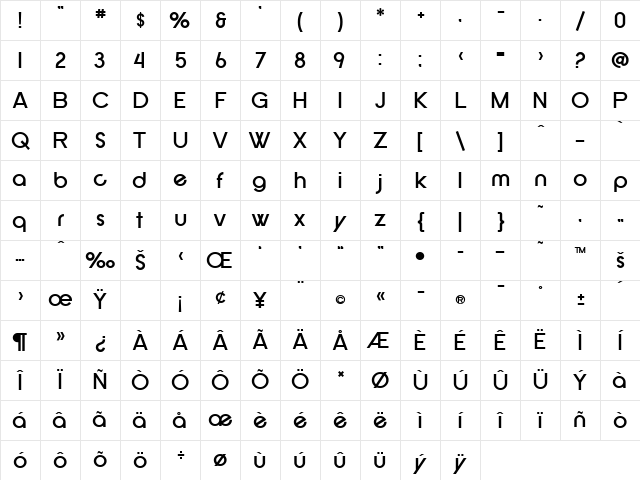
SF New Republic Bold Free Font
SF New Republic Bold
Design Context for SF New Republic
SF New Republic is a composed and adaptable typeface that performs quietly and consistently across a wide range of design contexts. Its bold stroke weight gives it real presence on the page.